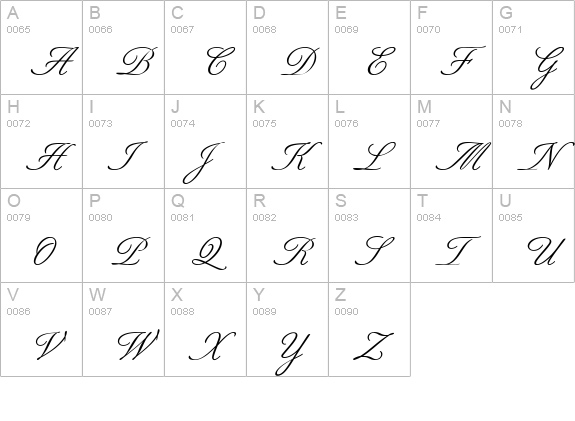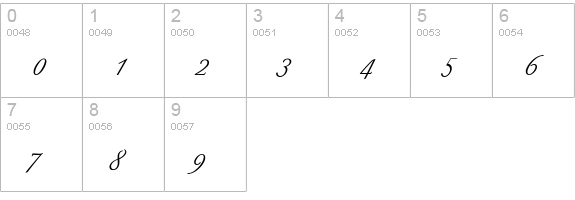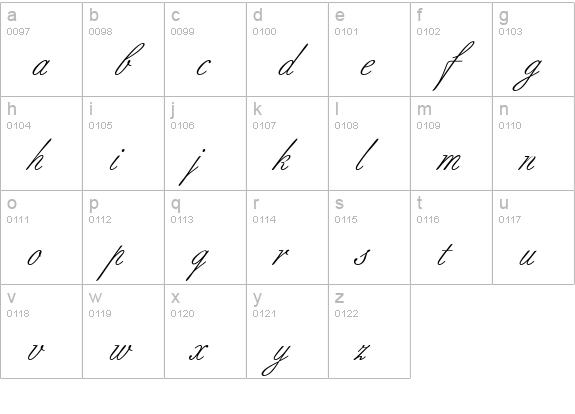
Berthold Script (R) Regular is the standard, neutral variant in the Berthold typeface family \xE2\x80\x94 well suited to general body text, paragraphs, and standard typographic work.
Berthold Script (R) Regular font is a timeless and elegant typeface that exudes sophistication and charm. Its gracefully flowing lines and delicate curves make it perfect for adding a touch of elegance to any design project. Whether you're creating wedding invitations, greeting cards, or branding materials, Berthold Script (R) Regular font will elevate your designs with its classic beauty. The best part is that Berthold Script (R) Regular font is available for free download at FontsMarket.com. This means you can easily access this stunning font and use it in your projects without any cost. Don't miss out on the opportunity to enhance your designs with this exquisite typeface – download Berthold Script (R) Regular font today and add a touch of sophistication to your creations.